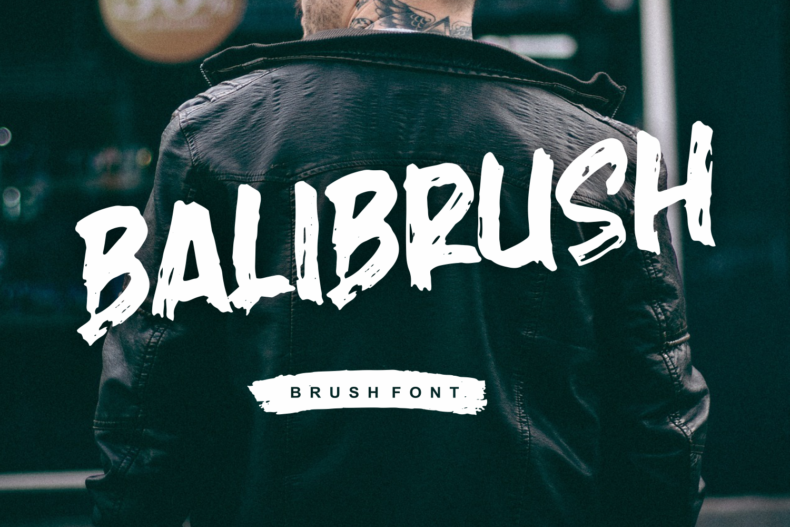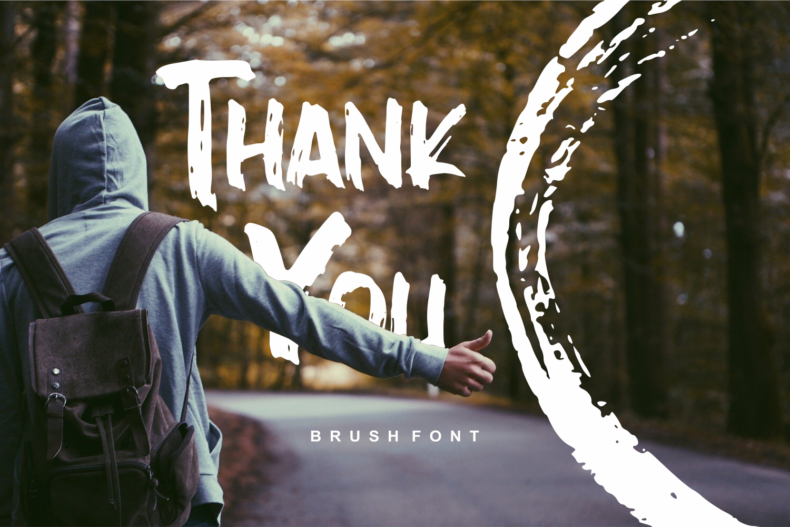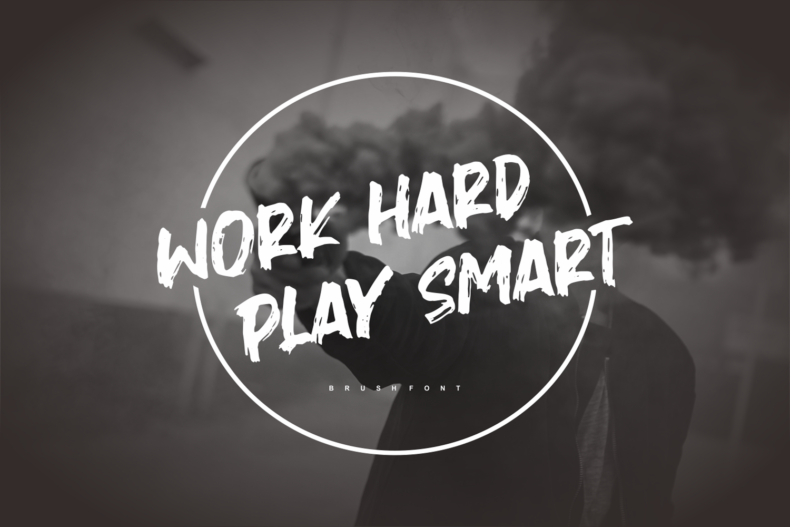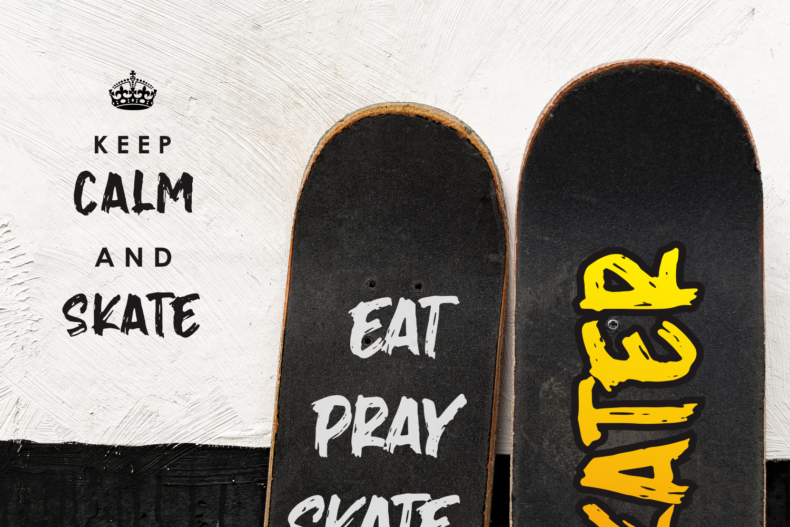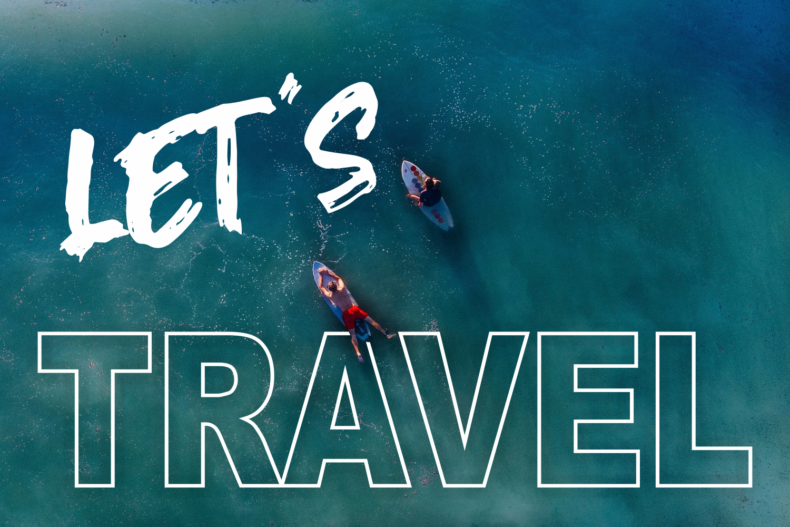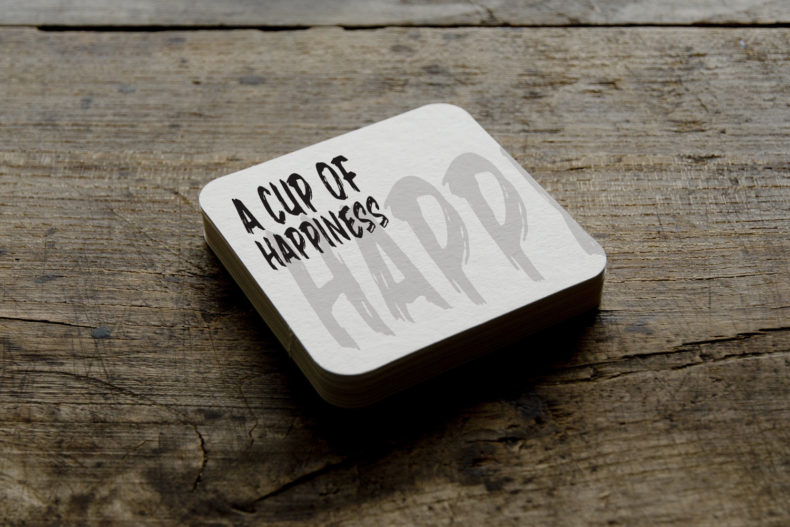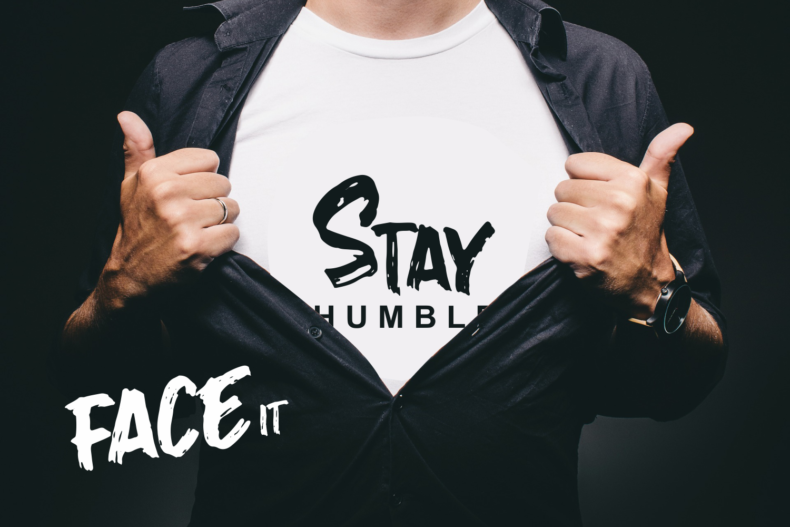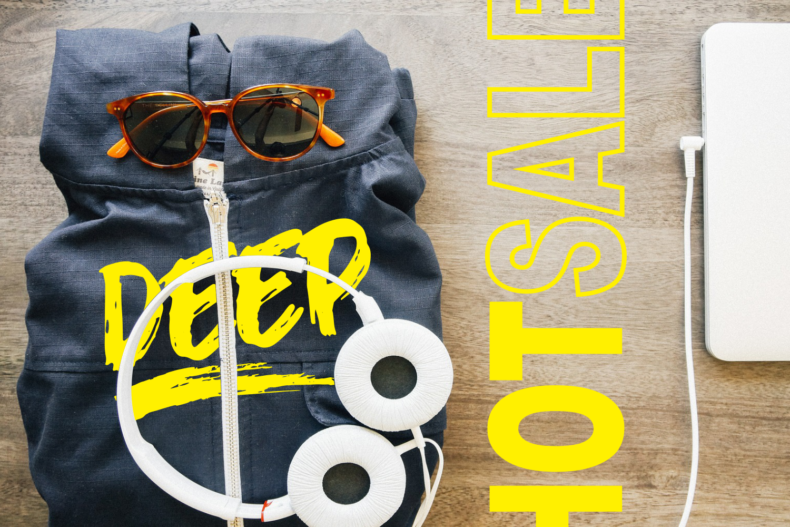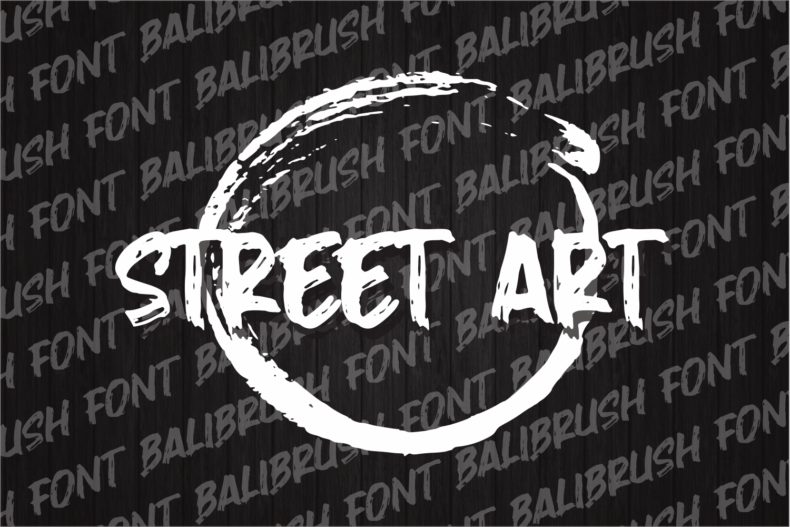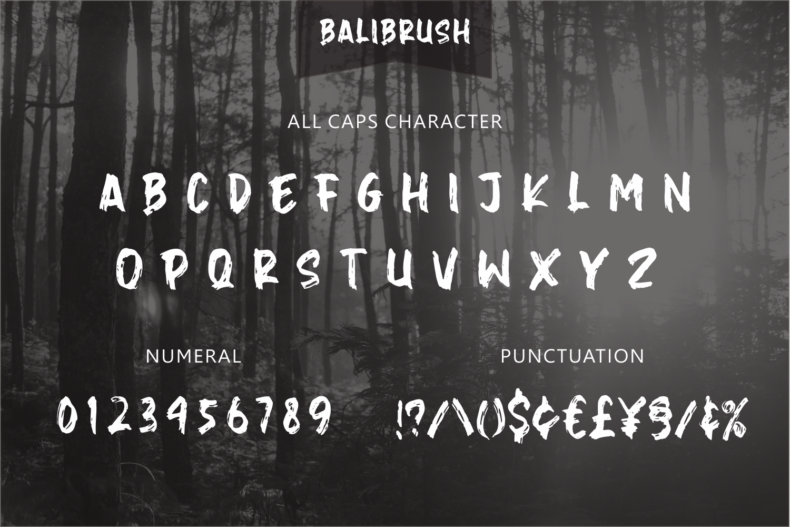
Balibrush is an all-caps marker font with rough brush texture. Its hand-drawn character suits outdoor, sports, and youth-focused display concepts.
Bring a marker-made feel to a short headline with Balibrush. The textured strokes offer a useful contrast to clean shapes and photography in adventure posters, sports graphics, and informal brand compositions.
Use it where the lettering can be large enough to show the texture. Try your title in the preview and check the result at its intended size, especially when placing it over a detailed background.